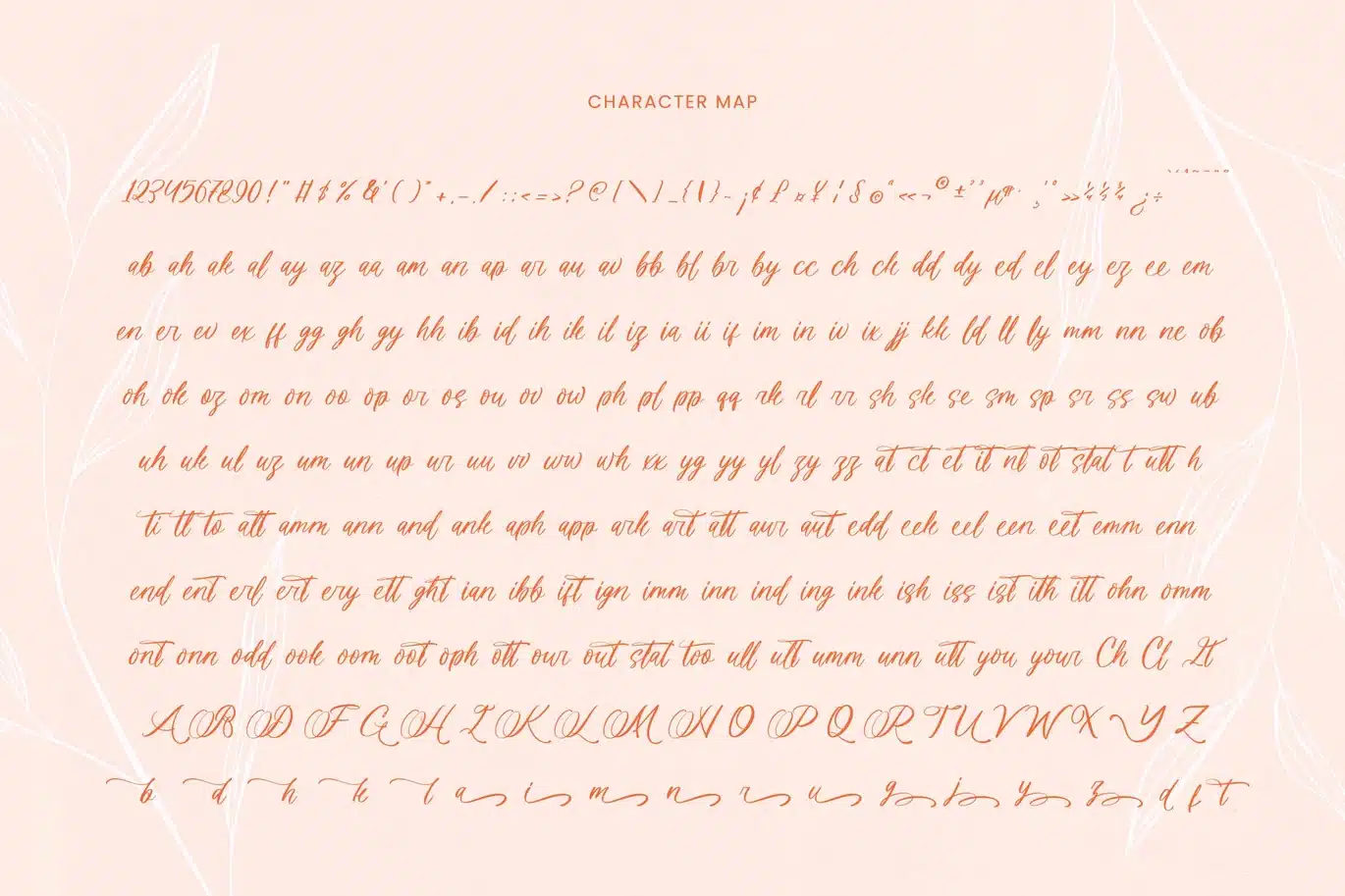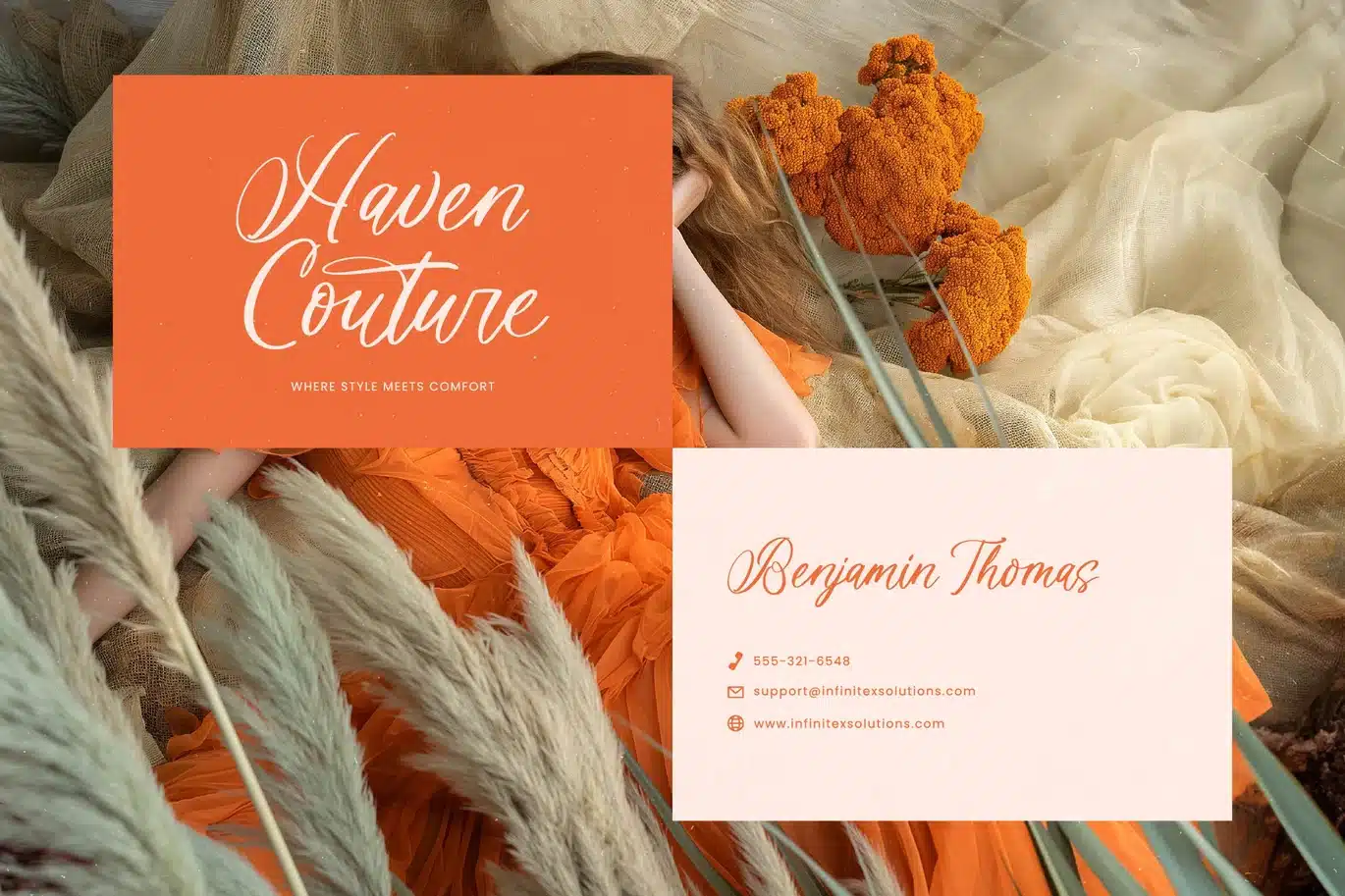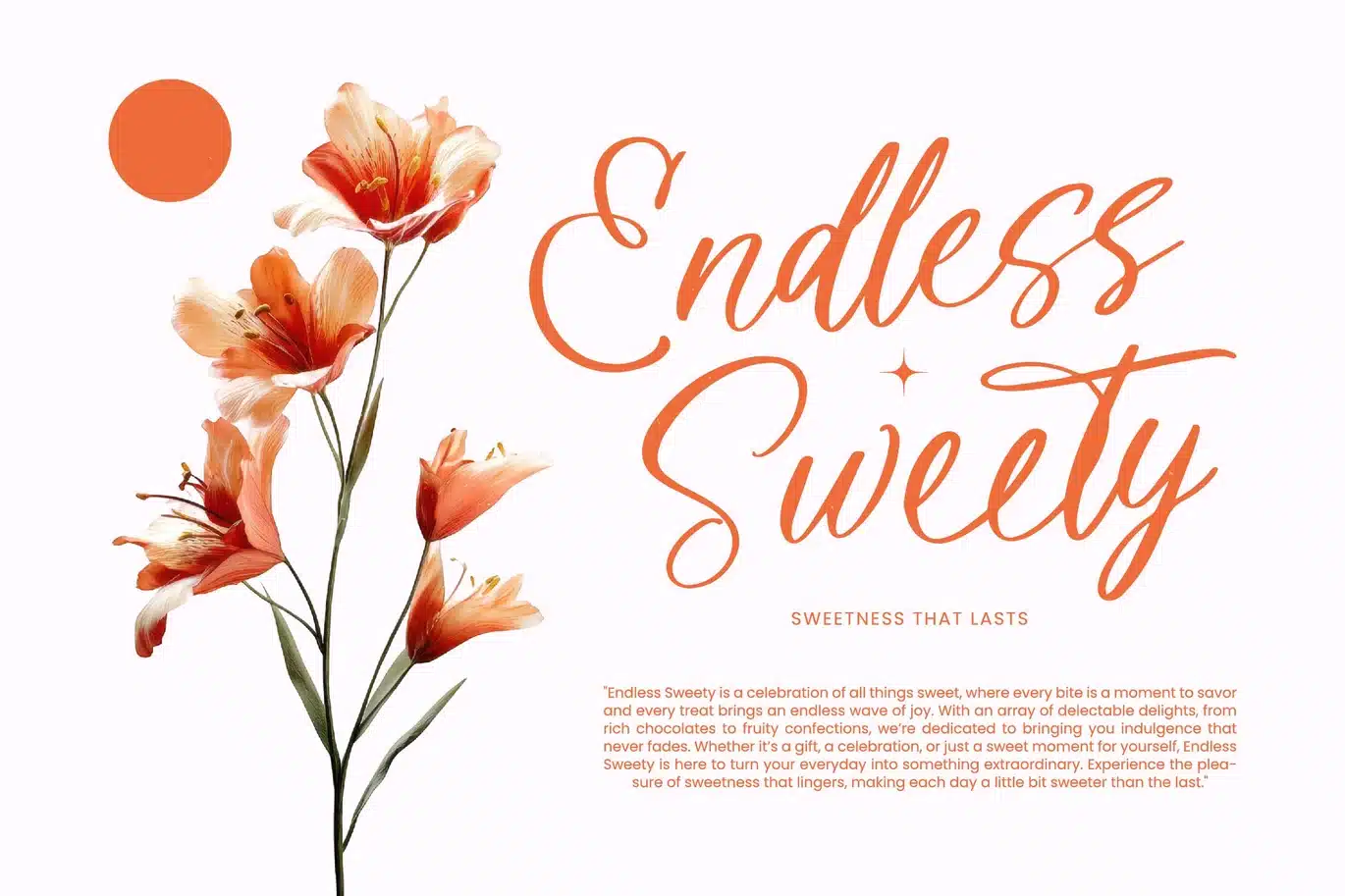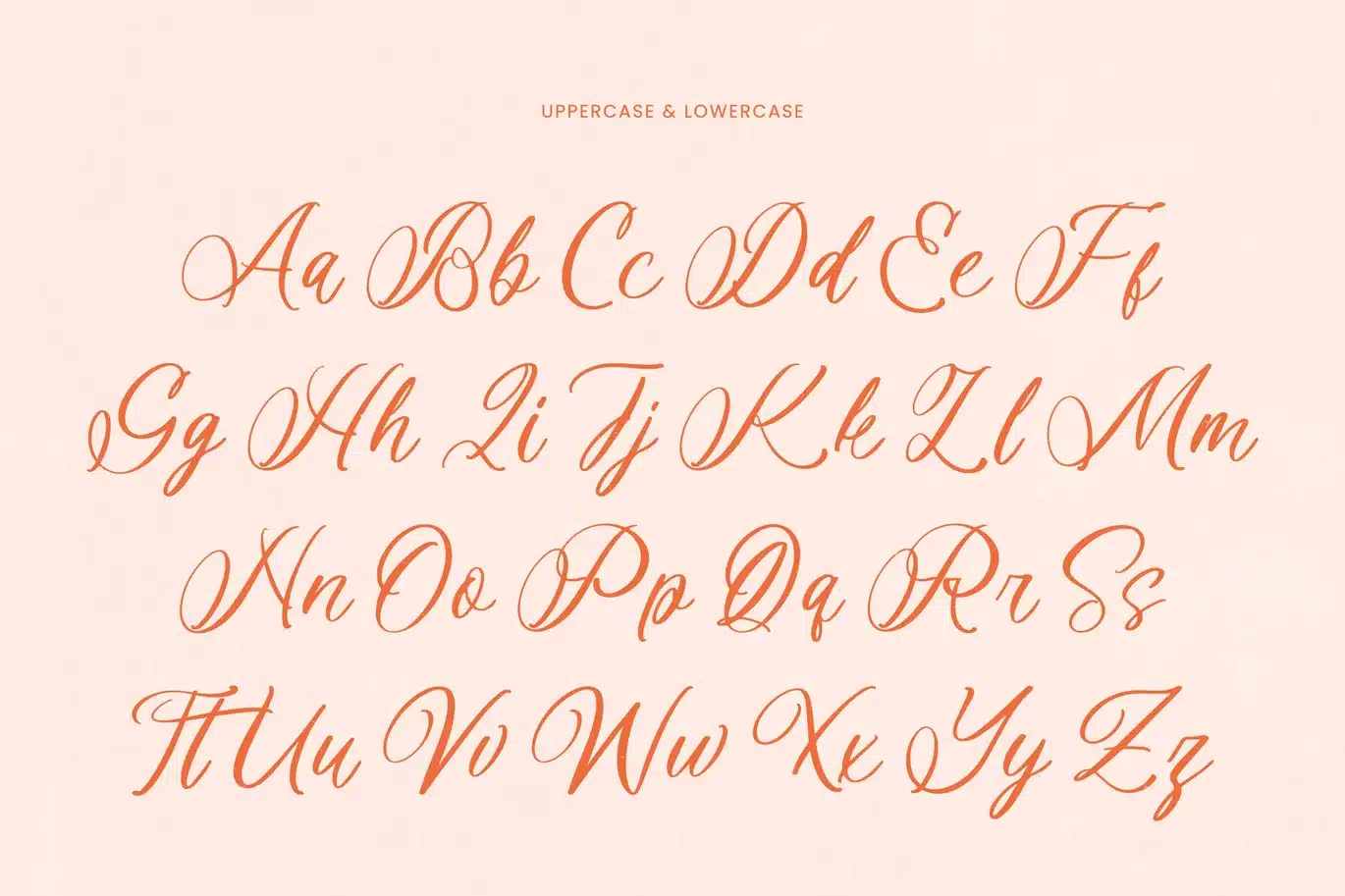
Denieda Marceline – Bold Calligraphy Font
Elevate your design projects with a touch of unmatched sophistication and fluid grace. Denieda Marceline – Bold Calligraphy Font is a stunning handcrafted script that captures the essence of high-end elegance through its rhythmic strokes and organic flow. This typeface is meticulously designed to provide a premium aesthetic, making it an essential tool for designers seeking to add a personal and luxurious touch to their creative repertoire.
Global reach meets artistic flair in this masterfully crafted typeface, offering an impressive collection of 183 ligatures and 40 alternates for ultimate customization. With its extensive multilingual support, Denieda Marceline – Bold Calligraphy Font adapts seamlessly across global markets, making it incredibly versatile for international projects. This versatile functionality ensures that your brand voice remains consistent and visually striking, regardless of the linguistic requirements of your audience.